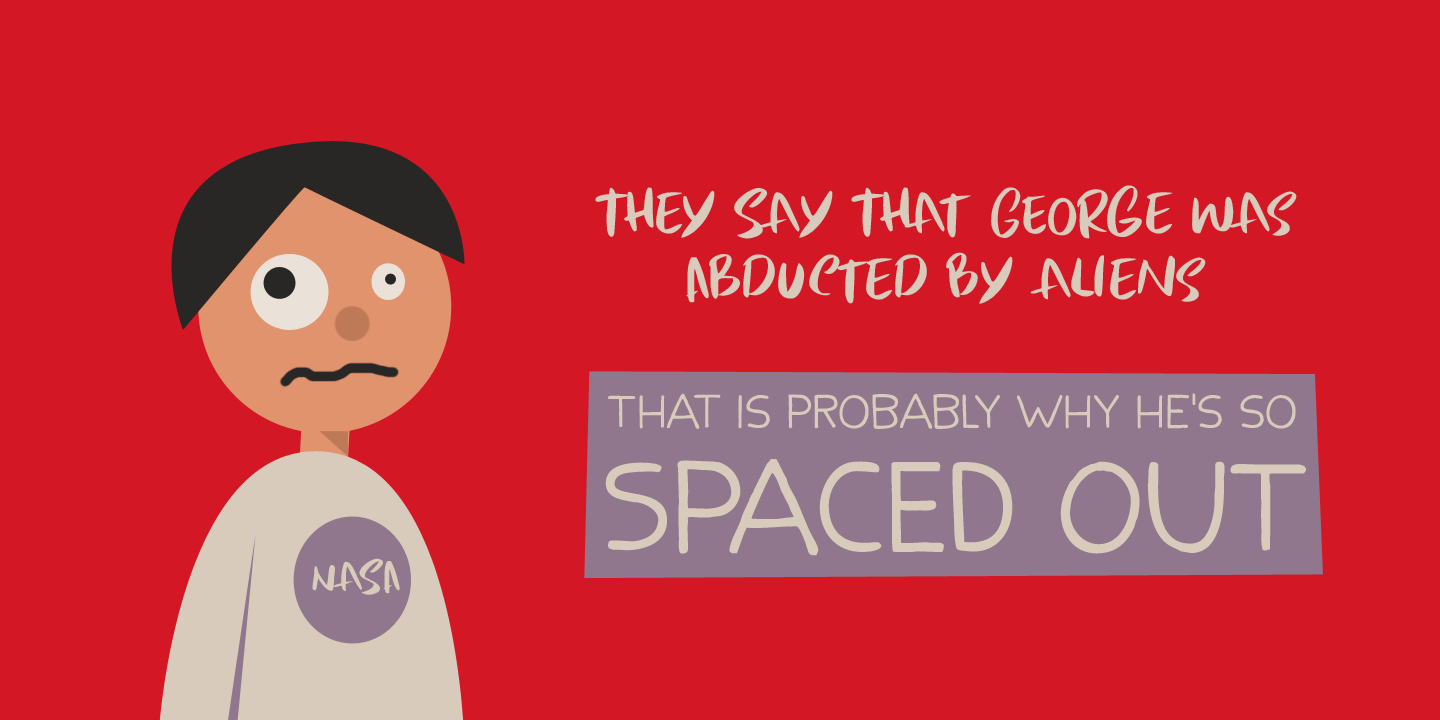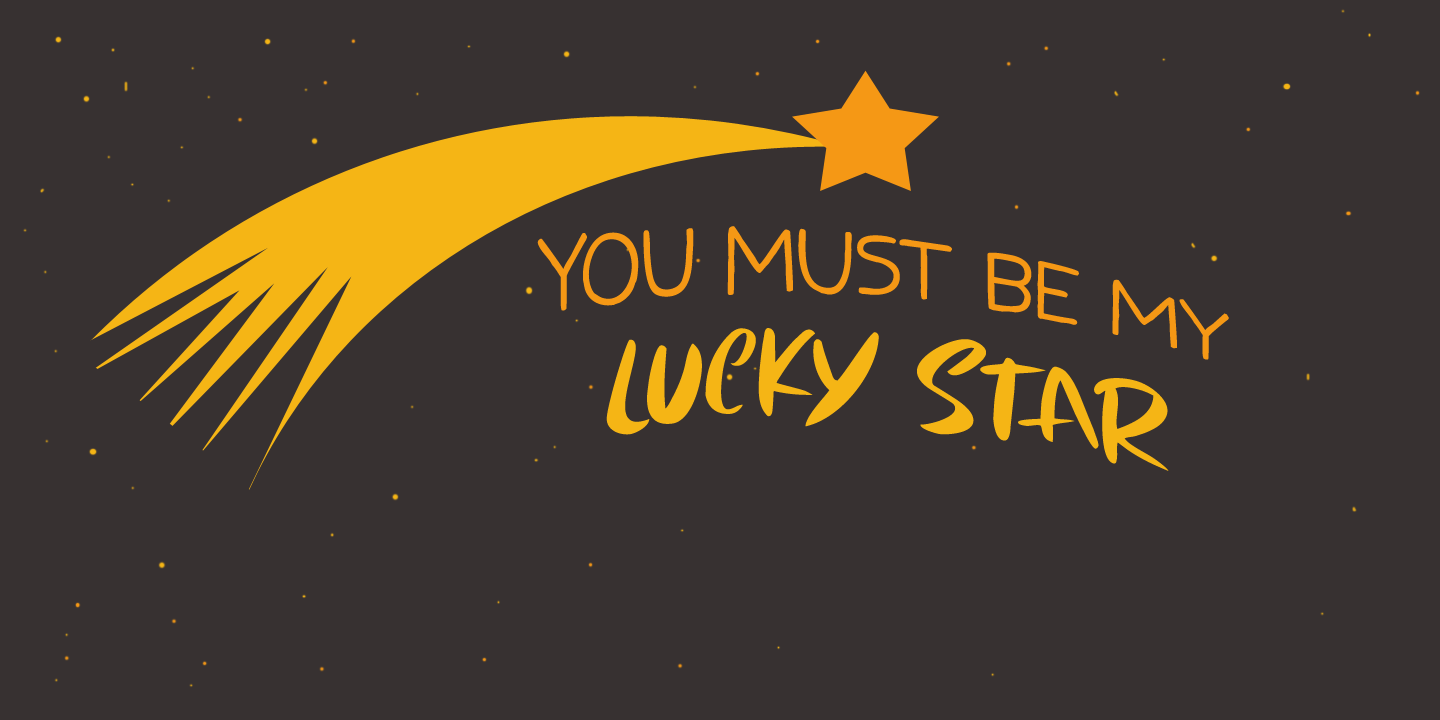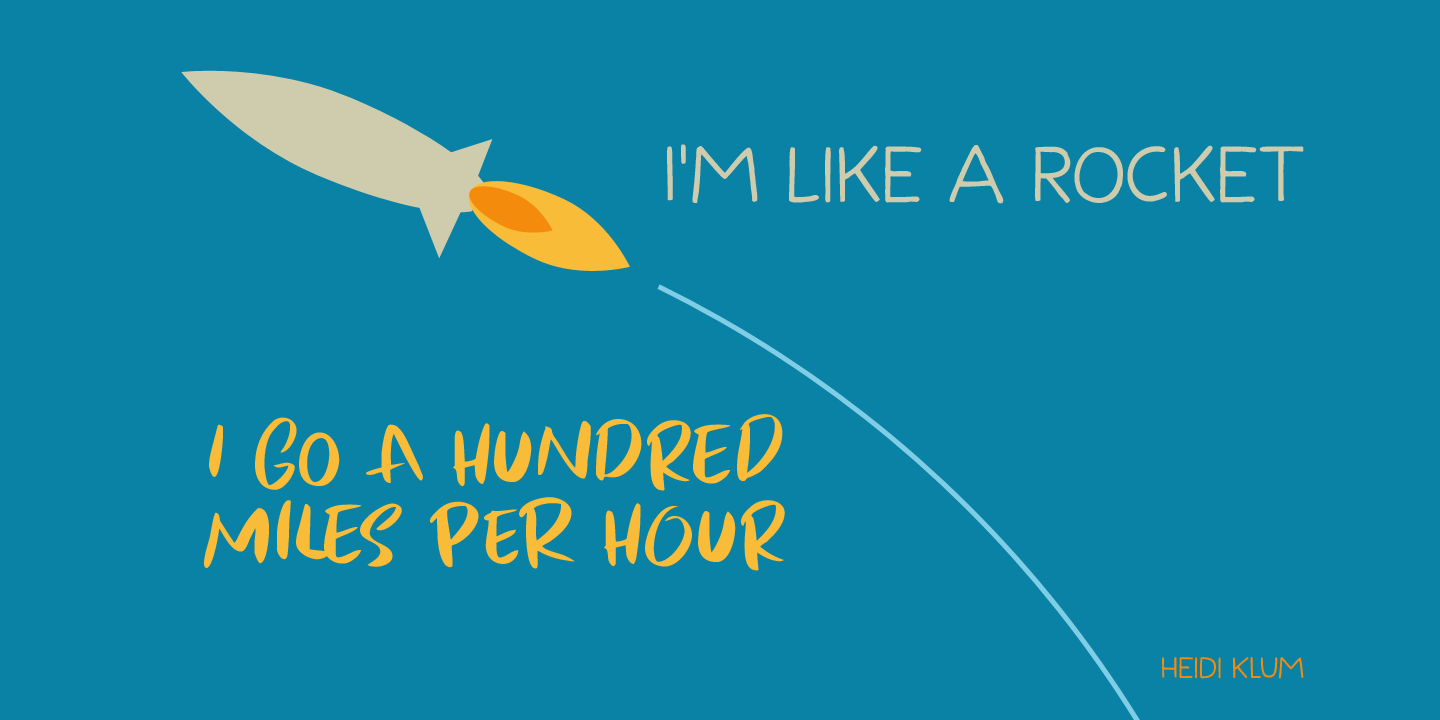
About Flying Saucer
My 7 year old son is reading a book called ?Spees De Ruimtewees? (Spees, the Galactic Orphan), so when I needed a name for this font family, I didn\’t have to think a lot! Flying Saucer is a family of 2 fonts: a rough(ish) sans serif and a script font.…